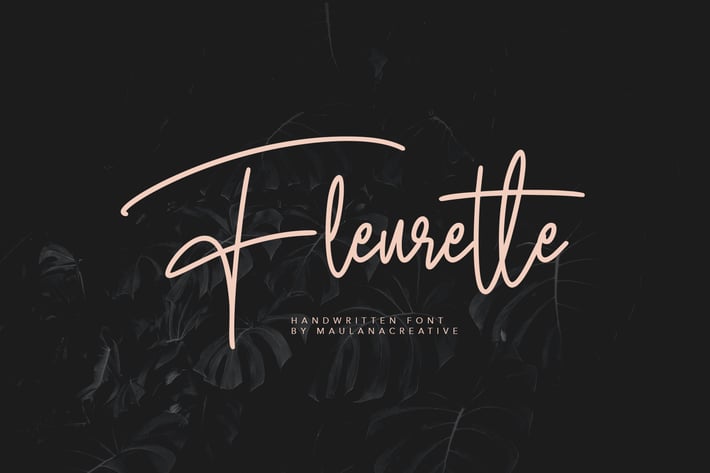
Fleurette Handwritten Font
Give your designs an authentic brush handcrafted feel. Fleurette is perfectly suited to signature, stationery, logo, typography quotes, magazine or book cover, website header, flyer, clothing, branding, packaging design and more.